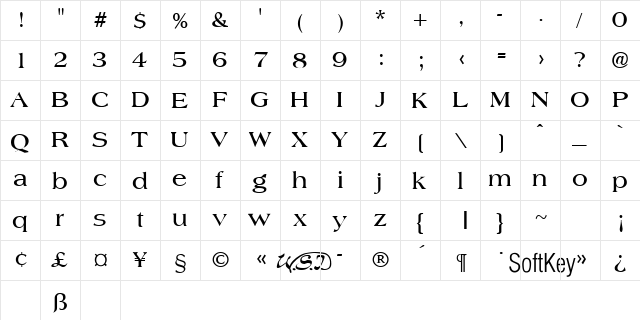
Americo Bold
Design Context for Americo Typeface
Americo is a composed and adaptable typeface that performs quietly and consistently across a wide range of design contexts. Its bold stroke weight gives it real presence on the page.